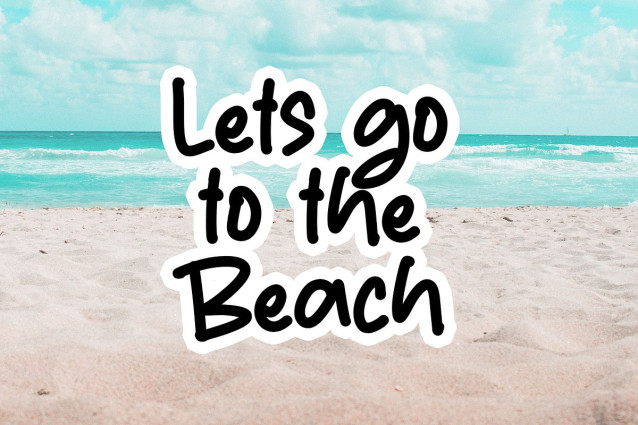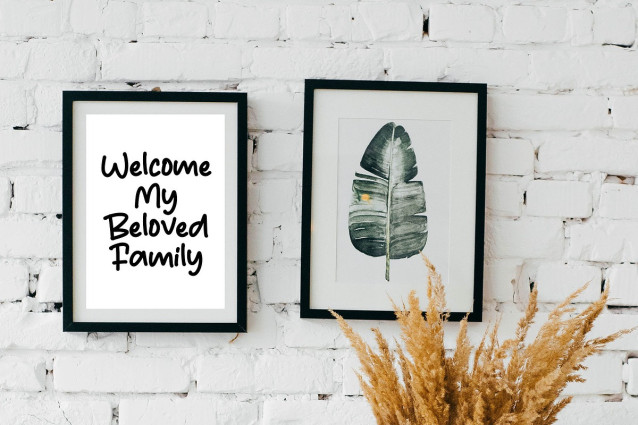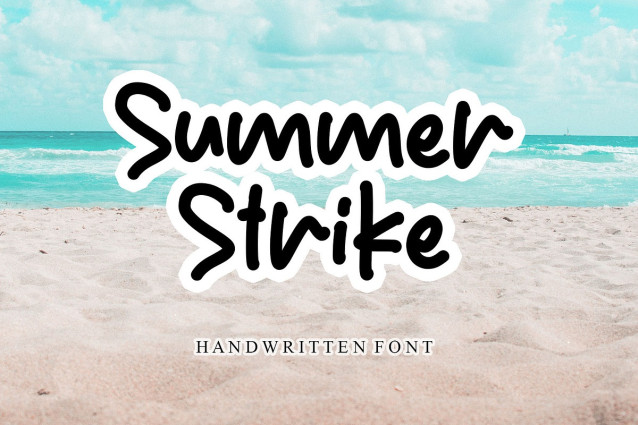
Summer Strike Handwriting Font
Summer Strike Handwriting Font is a vibrant script and handwritten typeface that captures the essence of carefree summer vibes. With its playful curves and stylish flourishes, it radiates a sense of joy and relaxation. Ideal for adding a refreshing touch to summer-themed designs, invitations, posters, and more.